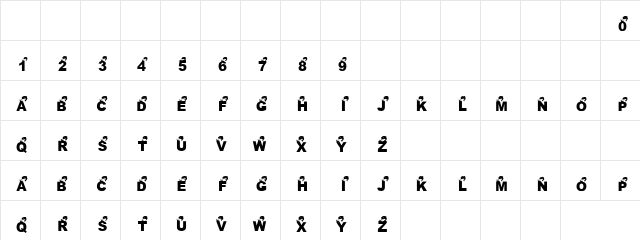
Spirty Regular
Design Context for Spirty Typeface
Spirty offers clean, dependable letterforms without strong stylistic allegiance, making it a practical choice for designers who need flexibility.